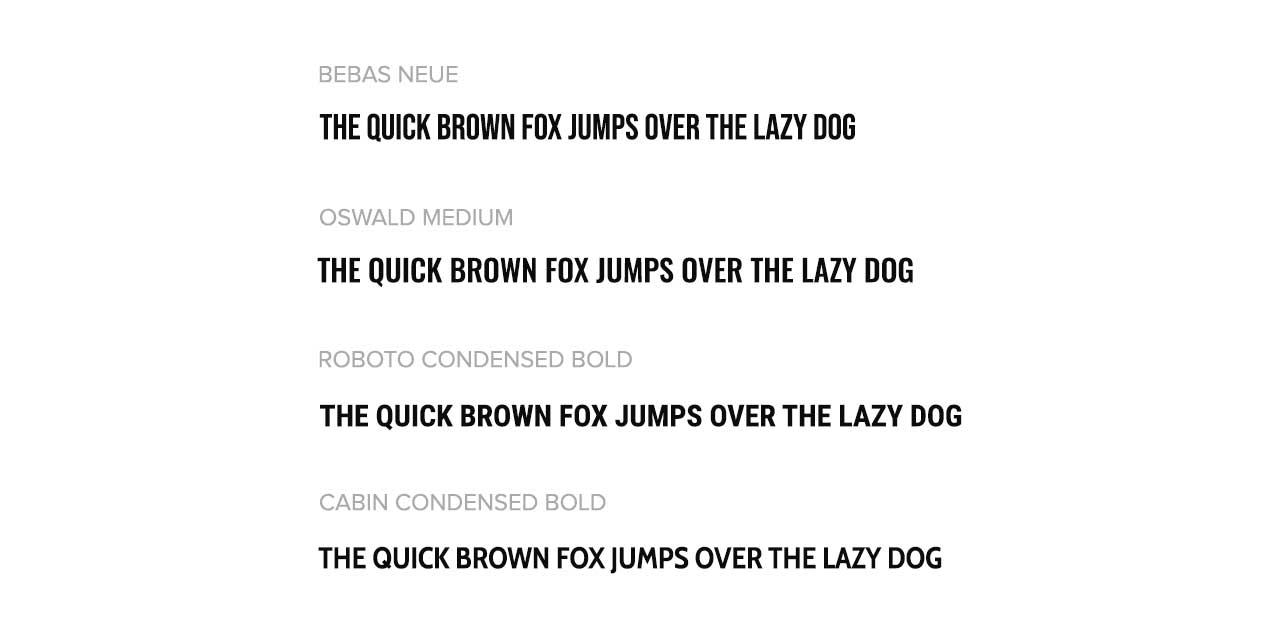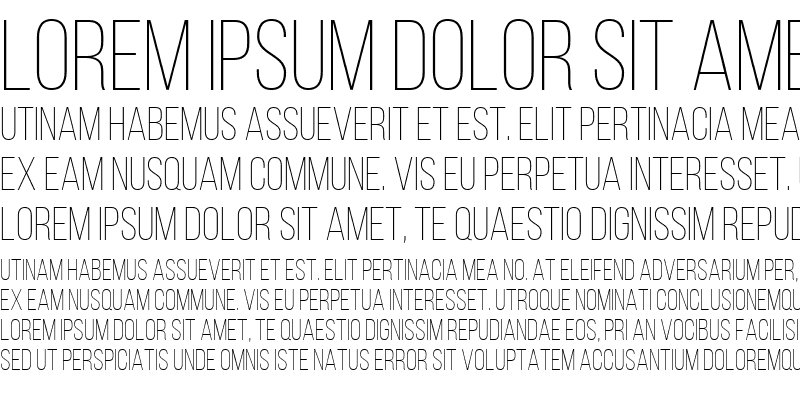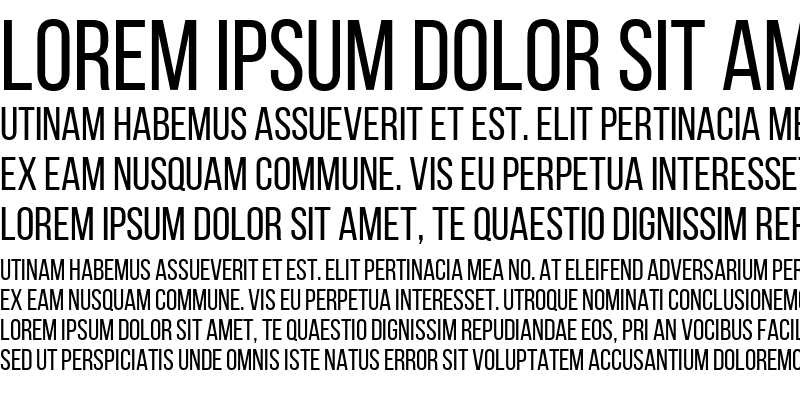
Similar Fonts To Bebas Neue
Similar Fonts To Bebas Neue. What google font is similar to bebas neue? You can also find an alternative version based on the previous v1.4 and produced by fontfabric, here.
Bebas font
Ryoichi tsunekawa’s updated form of his older bebas typeface has garnered a reputation as a fun, simple, and easily workable design. Similar typeface to bebas neue font. Bold, condensed sans serif type is here to stay.
Oswald is another free font that might make a good alternative if you need lowercase. Oswald medium oswald comparison roboto condensed comparison cabin condensed Try, buy and download any typeface from our collection of fonts similar to bebas neue.
The Family Is Suitable For Pro Users Due To Its Extended Character Set And Opentype Features.
Similar Typeface To Bebas Neue Font.
Making the web more beautiful, fast, and open through great typography Any type that is similar to the bebas neue, with the detail that it is outline. Bebas neue is an open source font family originally designed as a single font by ryoichi tsunekawa.
Now, You Can Use The Professional Version Bebas Neue Pro With Lowercases And Italics!
Ryoichi tsunekawa’s updated form of his older bebas typeface has garnered a reputation as a fun, simple, and easily workable design. Brotherton regular font of ms word is similar to this font. That may one day become a reality, until then here is three similar fonts we found.
Here Are Some Great, Free Alternatives To Using Bebas Neue In Your Graphics!
Bold, condensed sans serif type is here to stay. We see these ideas in other font designs that are similar to bebas neue too: It's based on the original bebas typeface.